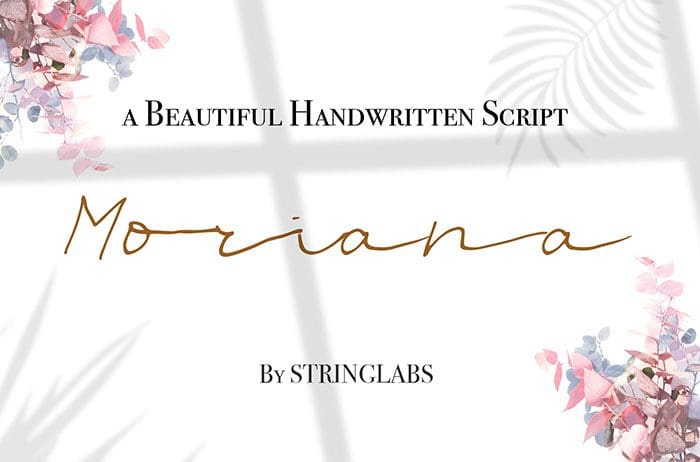
Moriana handwritten script font can be used for any variety of purposes, such as:Photography, Wedding & Birthday Invitation, Logo Type and Signature. This font is available only for personal use. Created this font by StringLabs. You can also search more free Script Fonts. Thanks!